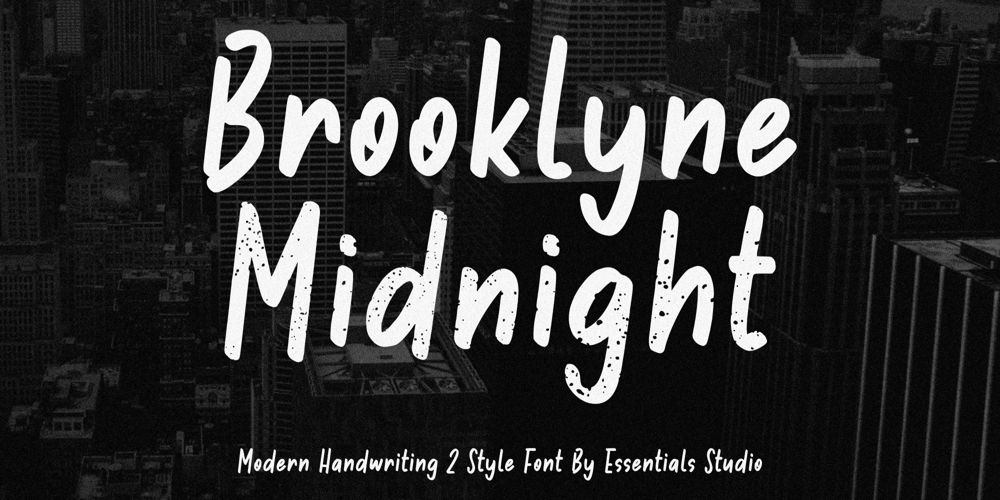
Brooklyne Midnight
Brooklyne Midnight font
Brooklyne Midnight Font Family was designed by Annas Rifky Anhar and published by Essentials Studio. Brooklyne Midnight contains 2 styles and family package options. introducing by Essentials StudioProudly Present, Brooklyne Midnight Is a A Modern Handwriting with 2 Style FontBrooklyne Midnight is perfect for product packaging, branding project, megazine, social media, wedding, or just used to express words above the backgroun